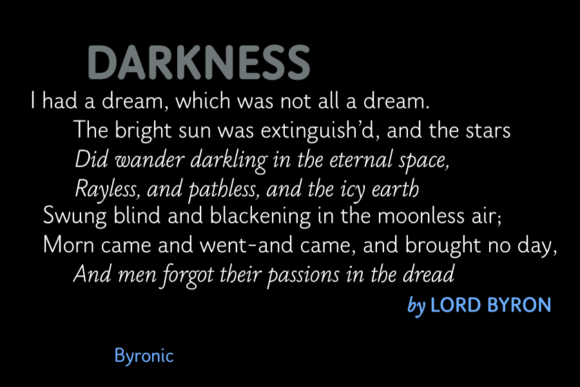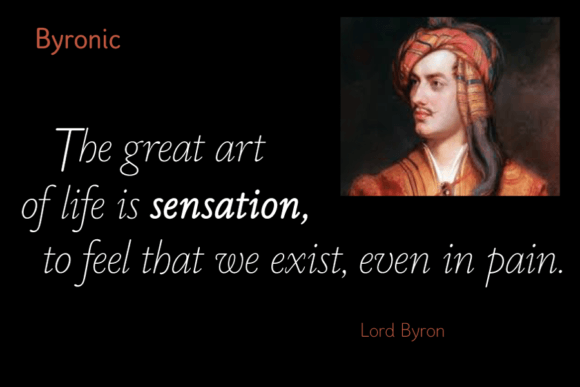
Byronic Font
Byronic is a soft modern sans serif but with antique style lowercase. The rounded end soft appearance gives Byronic a friendly soft look whilst still retaining a classic typographical appearance. Very clean in appearance and slightly condensed, it is excellent for text setting with an unusual lower-case that compliments the caps perfectly.